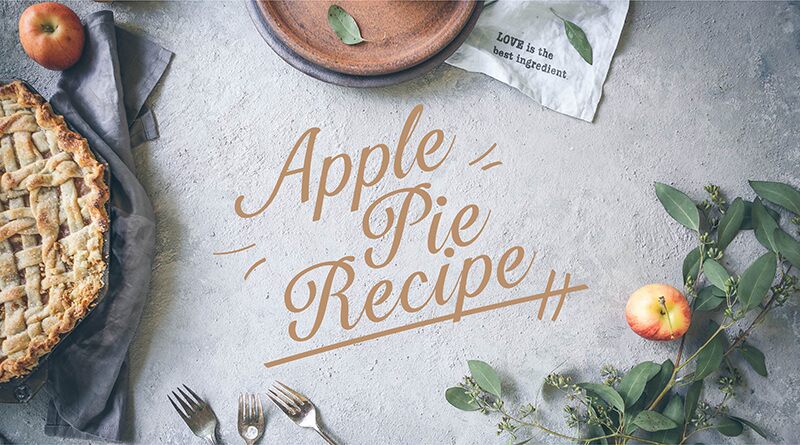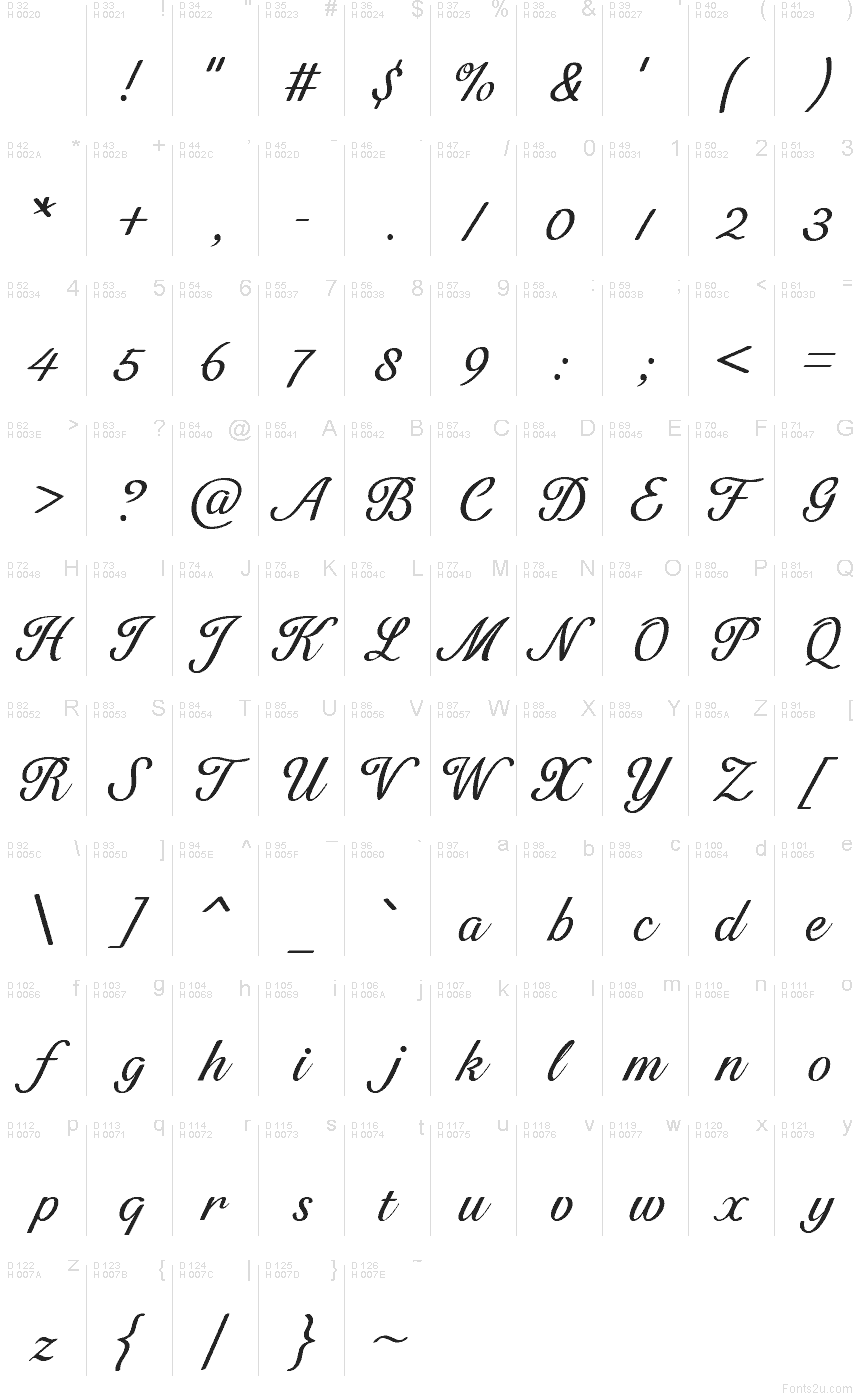
HFPoet
HFPoet font by HyFont Studio is a free calligraphy typeface with a polished, handwritten grace that feels like ink pulled straight from a fine nib. Its looping capitals, gentle slant, and smooth, sweeping strokes give every word a sense of ceremony and warmth, without slipping into messy flourishes. Letters connect with an easy rhythm that keeps long phrases readable while still feeling luxurious and personal.
Using HFPoet, you can bring a refined script touch to wedding invitations, event stationery, logos, packaging, greeting cards, and social media graphics. This free font shines when used large, where the curves can really breathe; pair it with a clean sans serif for body text to keep your layouts crisp and balanced.